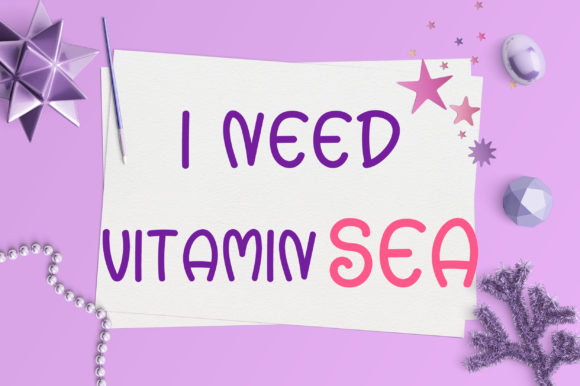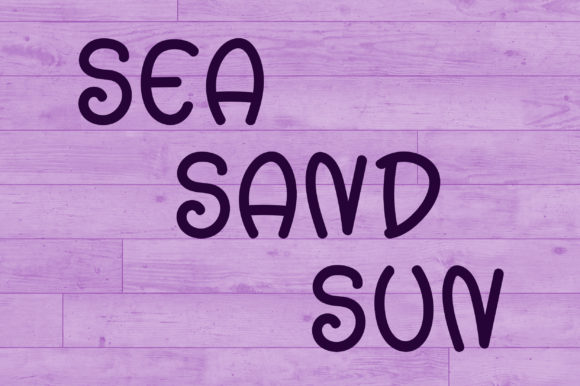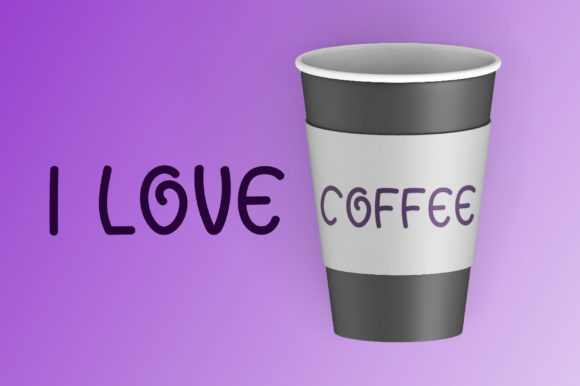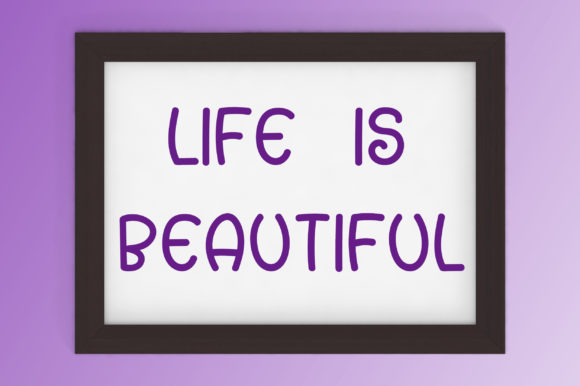
Introduction to Sea World Font
Sea World is a sweet and friendly handwritten font.
Sea World Font offers exceptional quality and versatility, making it a valuable addition to your design toolkit. Whether you’re creating for personal projects or commercial use, Sea World Font delivers professional results.